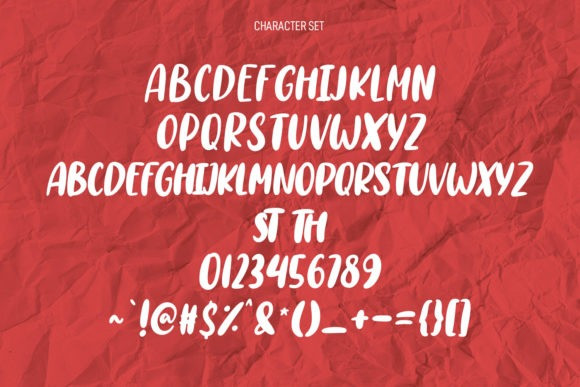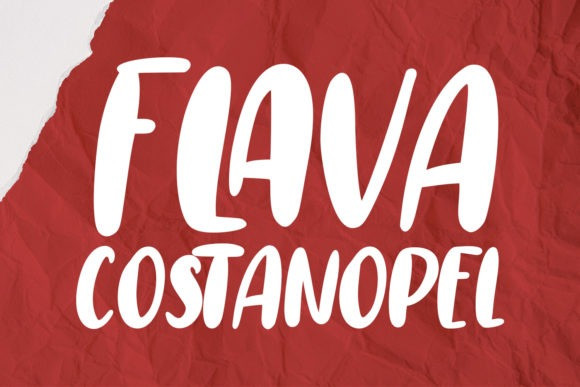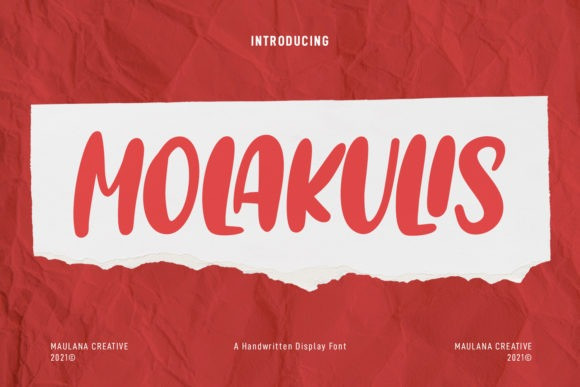
Molakulis Font
Molakulis Display Font is a casual and well-rounded display font perfect for binging a fun vibe to your designs! Use it for logos, movie titles, storybook covers, posters, or any other project that need bold and beautiful typography!